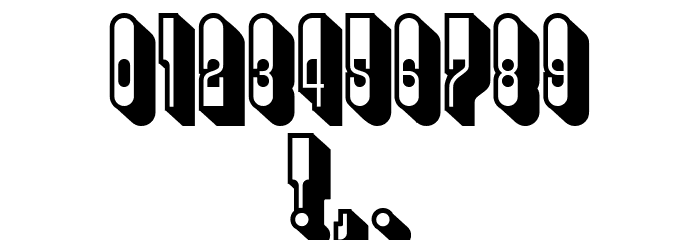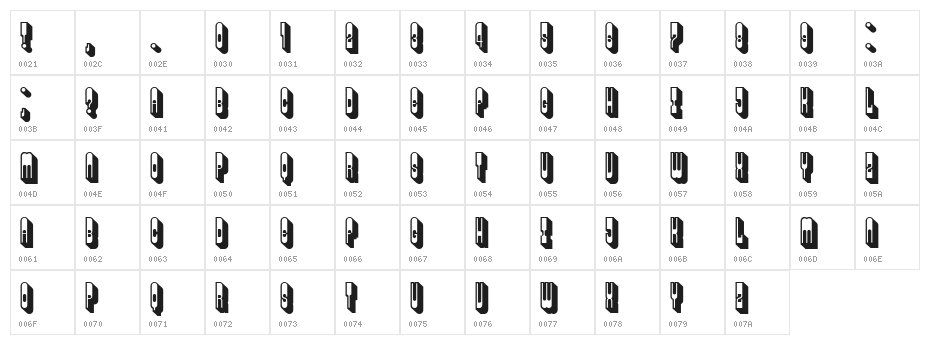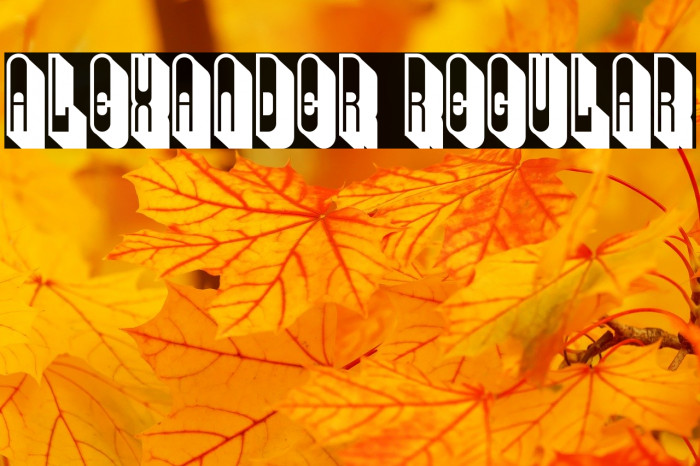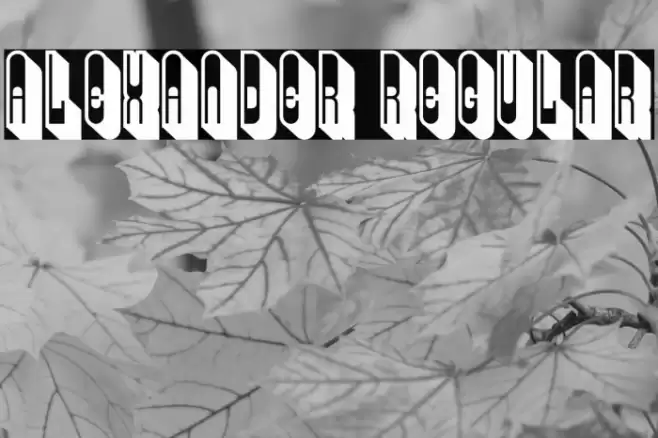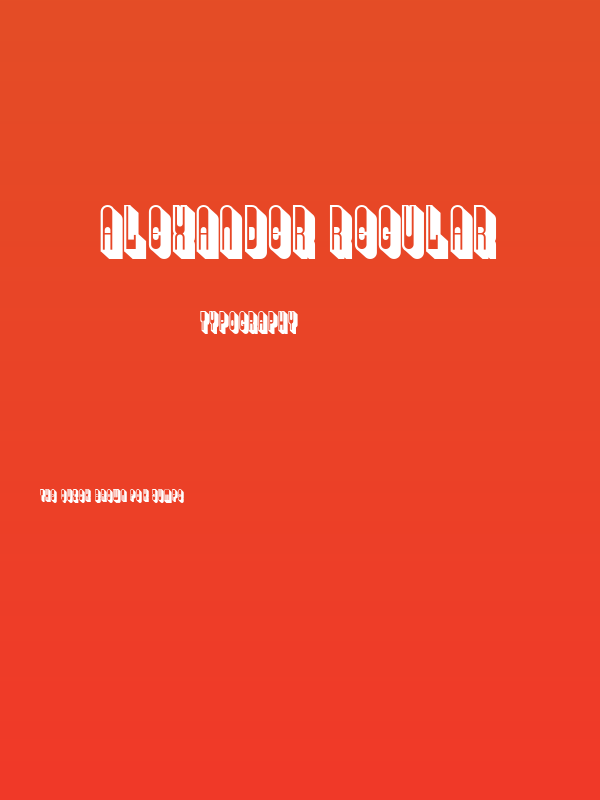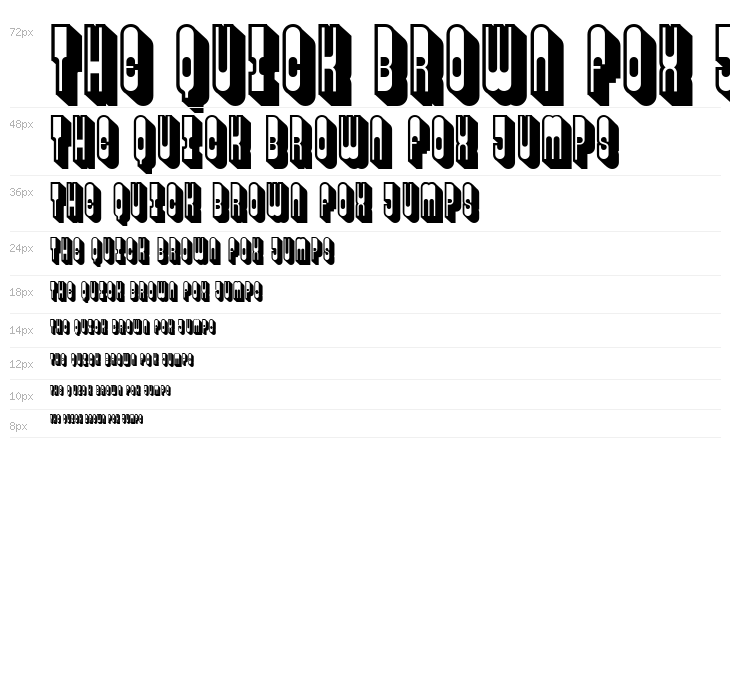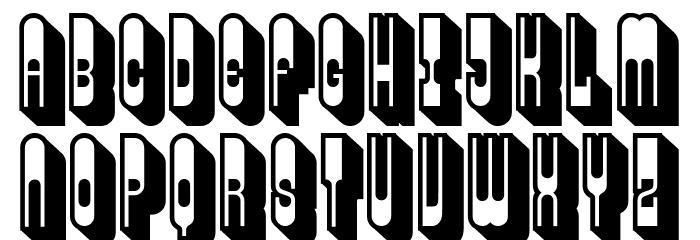
Alexander Regular Font
Alexander Regular Description
This font features a bold, three-dimensional style with a strong shadow effect, creating a sense of depth and impact. The characters are uppercase and lowercase, with a consistent blocky appearance that emphasizes vertical and horizontal lines. The numbers and special characters maintain the same bold and shadowed style, ensuring uniformity across all glyphs. This font is highly decorative, making it ideal for eye-catching designs. The thick strokes and shadowing give it a commanding presence, suitable for projects that require a strong visual statement.
| Proposed Projects | Ideal for posters, headlines, logos, and any design requiring a bold, impactful look. |